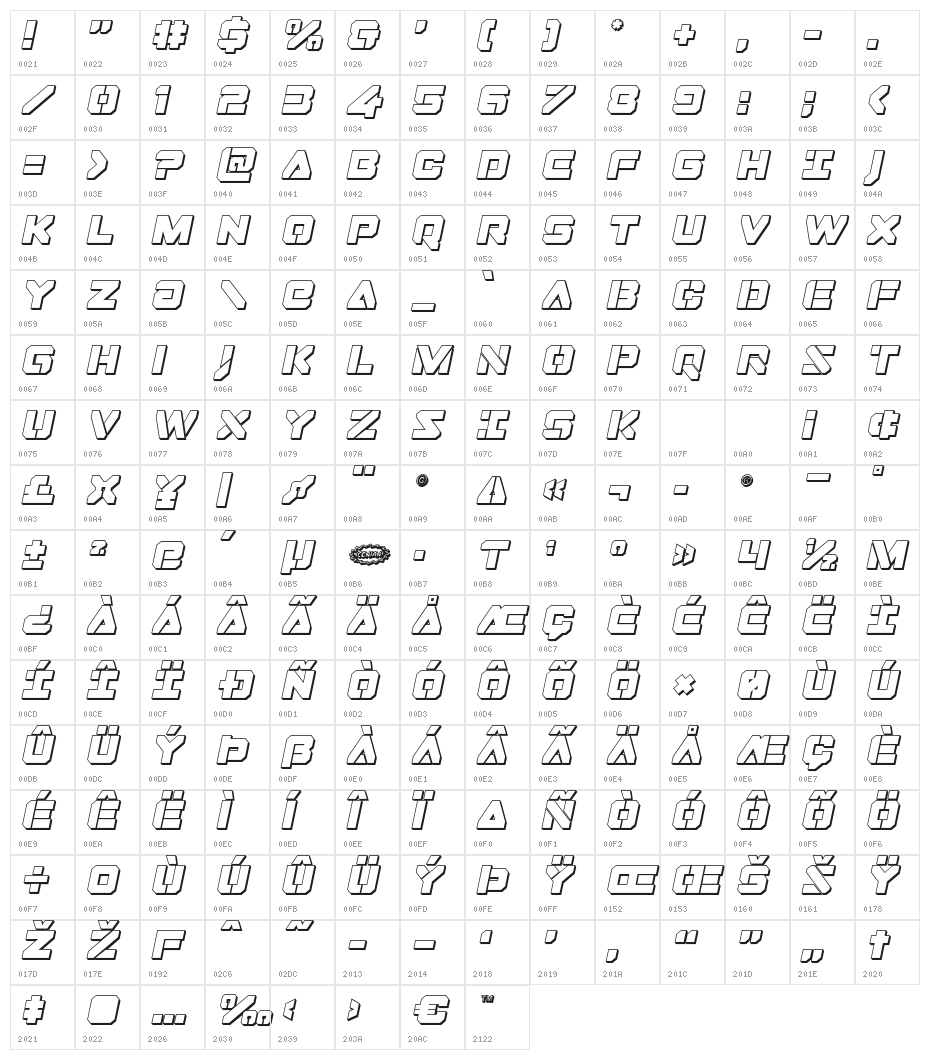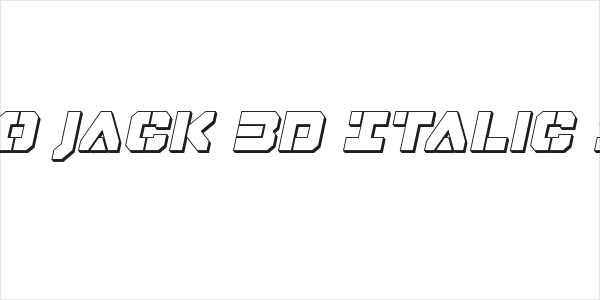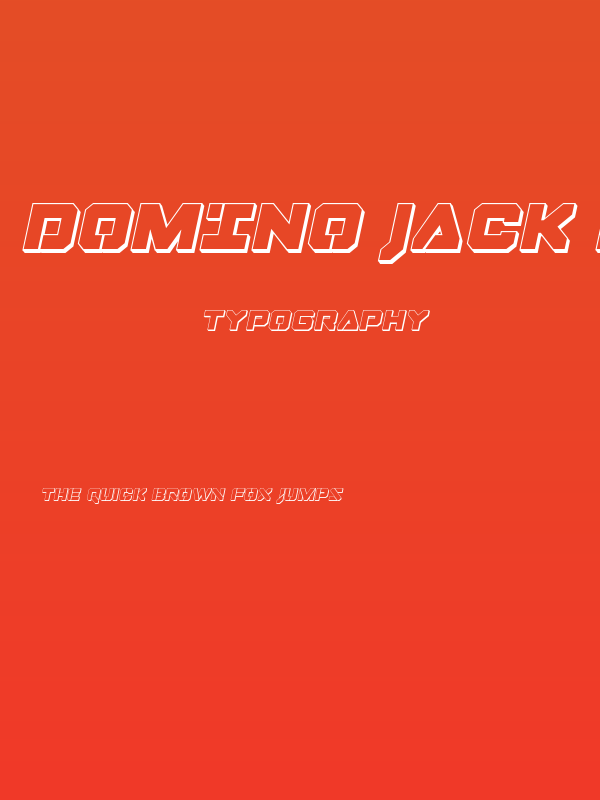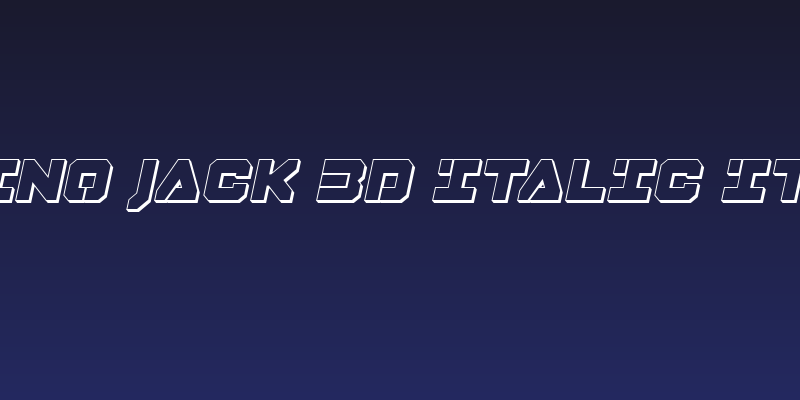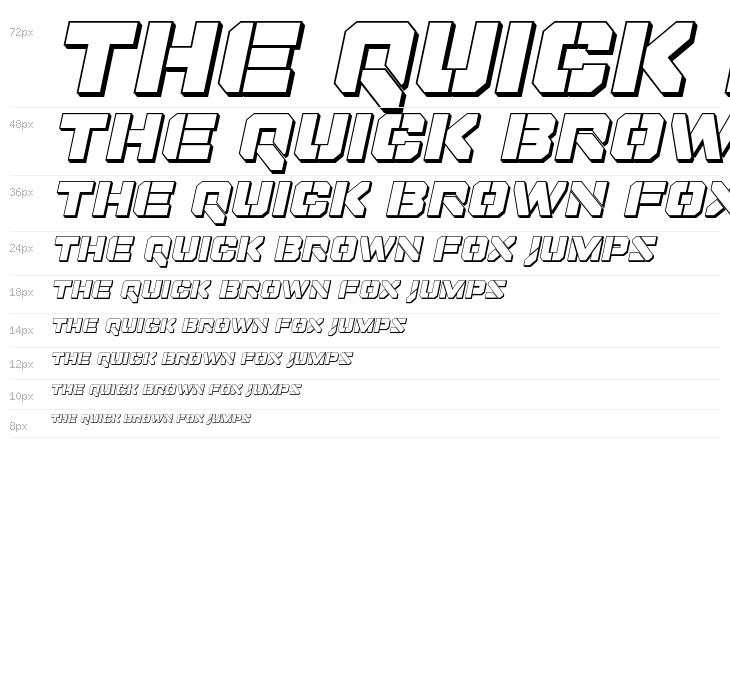
Domino Jack 3D Italic Italic Font
Domino Jack 3D Italic Italic Description
This font features a bold, three-dimensional design with an italic slant, creating a dynamic and futuristic appearance. The characters are outlined, giving them a hollow look that enhances their 3D effect. The geometric shapes and sharp angles contribute to a modern and edgy style, making it stand out in any design. The uppercase and lowercase letters maintain a consistent style, while the numbers and special characters complement the overall aesthetic. This font is ideal for projects that require a strong visual impact.
| Proposed Projects | Ideal for video game titles, tech-themed posters, futuristic branding, and digital artwork. |